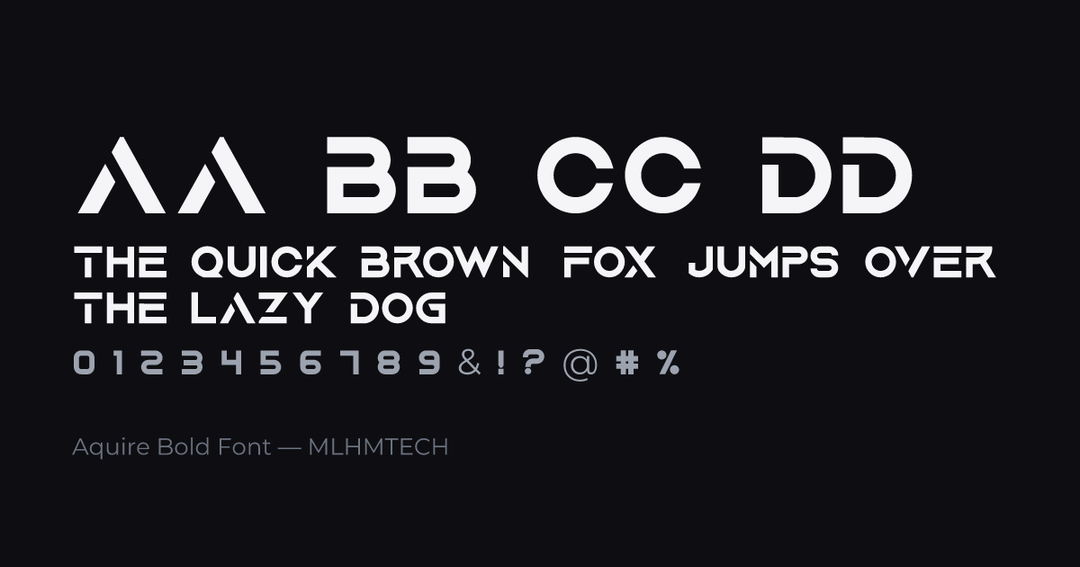
Aquire Bold Font
Aquire Bold is a modern, bold display font ideal for impactful headings, logos, and creative designs. Includes OTF file for easy installation.
Aquire Bold is a handpicked display font that commands attention with its strong, geometric letterforms. Its bold weight and clean lines make it perfect for headlines, posters, branding, and any project that needs a modern, confident look. The font is provided in OTF format, ensuring compatibility with a wide range of design software.
This font is part of a curated collection of high-quality typefaces, selected for its versatility and visual appeal. Whether you're working on a logo, social media graphic, or print layout, Aquire Bold adds a touch of contemporary style. Its legibility at large sizes makes it an excellent choice for titles and banners.